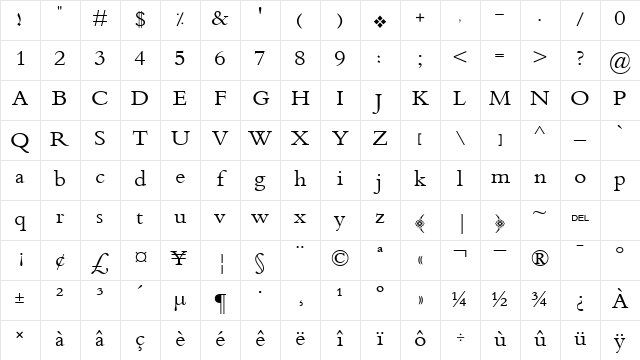
Complete bader_al yadawi bader glyph index. Displaying only characters natively supported by bader_al yadawi bader font.
bader_al yadawi is a composed and adaptable typeface that performs quietly and consistently across a wide range of design contexts.